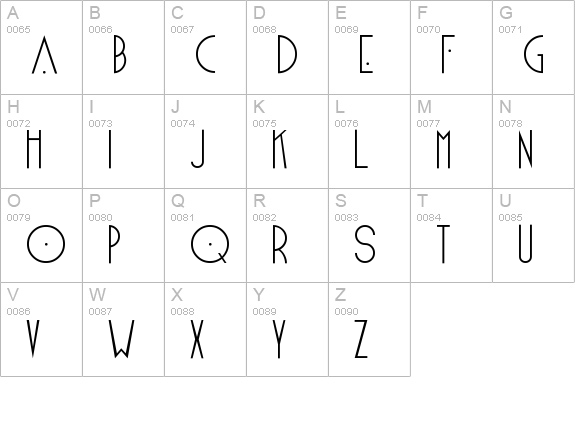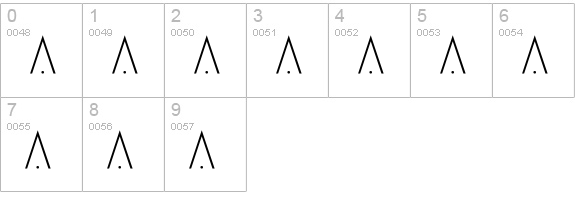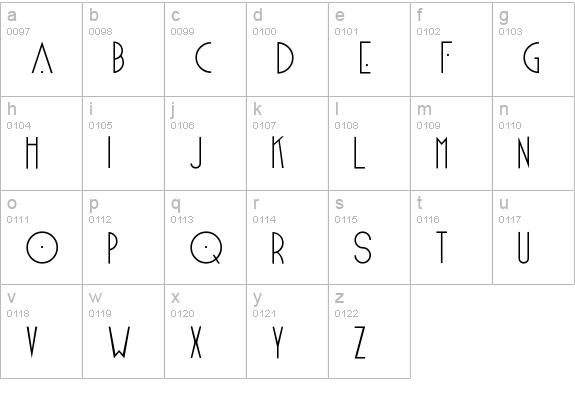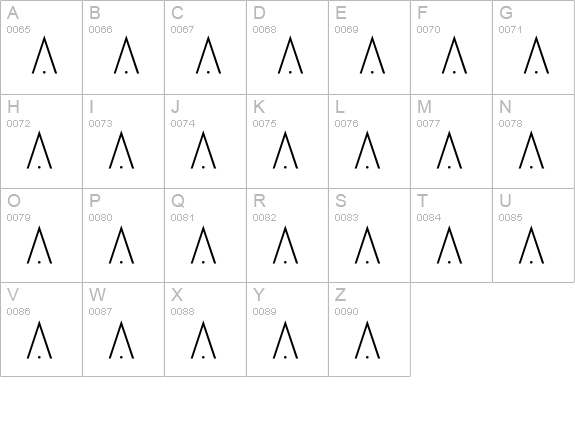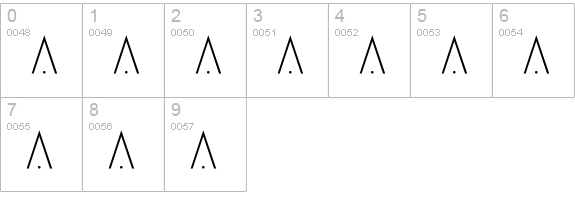
Blake font is a stylish and modern typeface that exudes sophistication and elegance. Its sleek lines and contemporary design make it perfect for a wide range of projects, from branding to editorial design. The font features clean, sharp edges and a distinct personality that sets it apart from other typefaces. The best part? Blake font is available for free download at FontsMarket.com, making it accessible to designers and creatives looking to add a touch of class to their work without breaking the bank. Whether you're working on a logo, website, or print materials, Blake font is sure to elevate your design and make a lasting impression. Download it today and see for yourself the impact this versatile font can have on your projects.